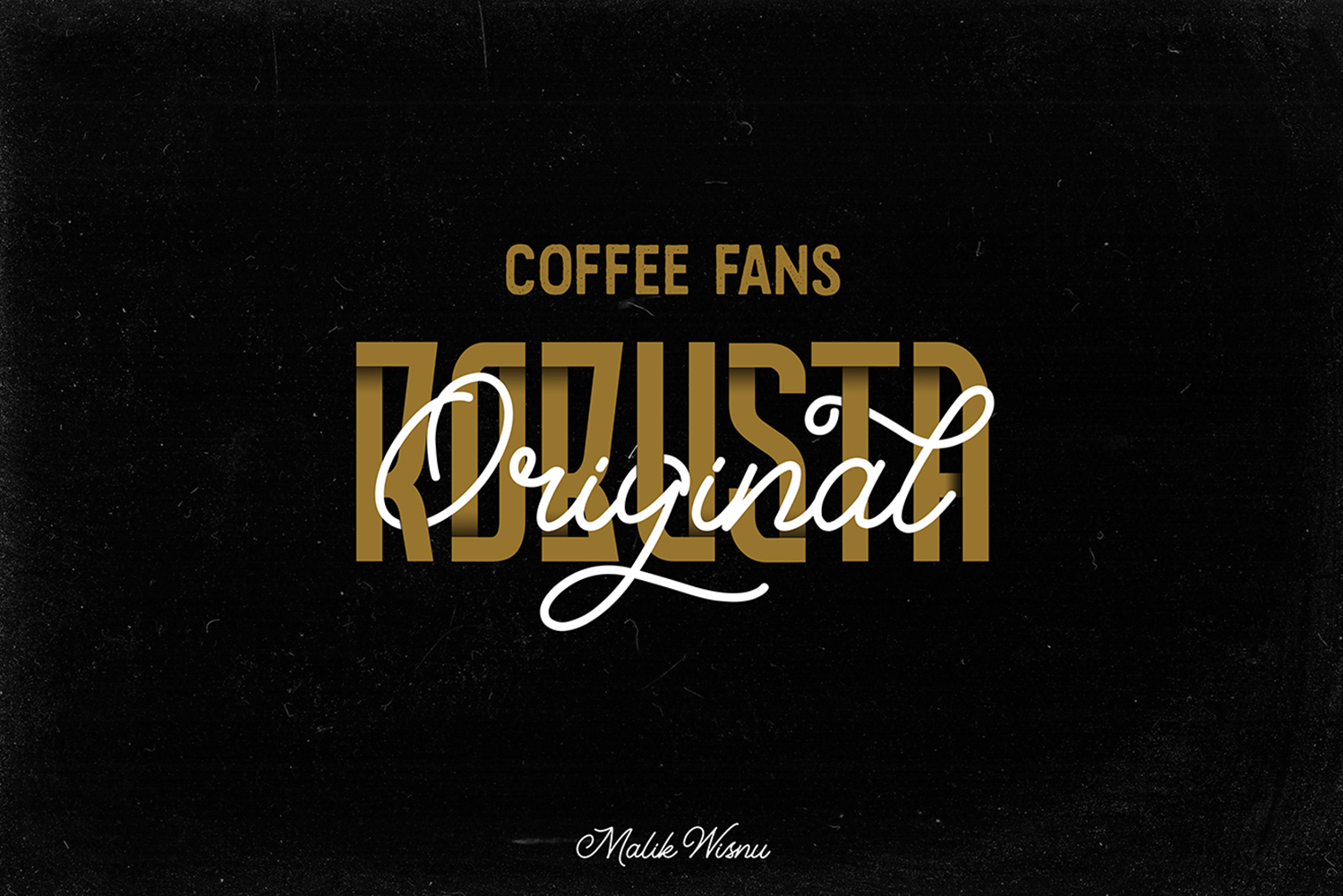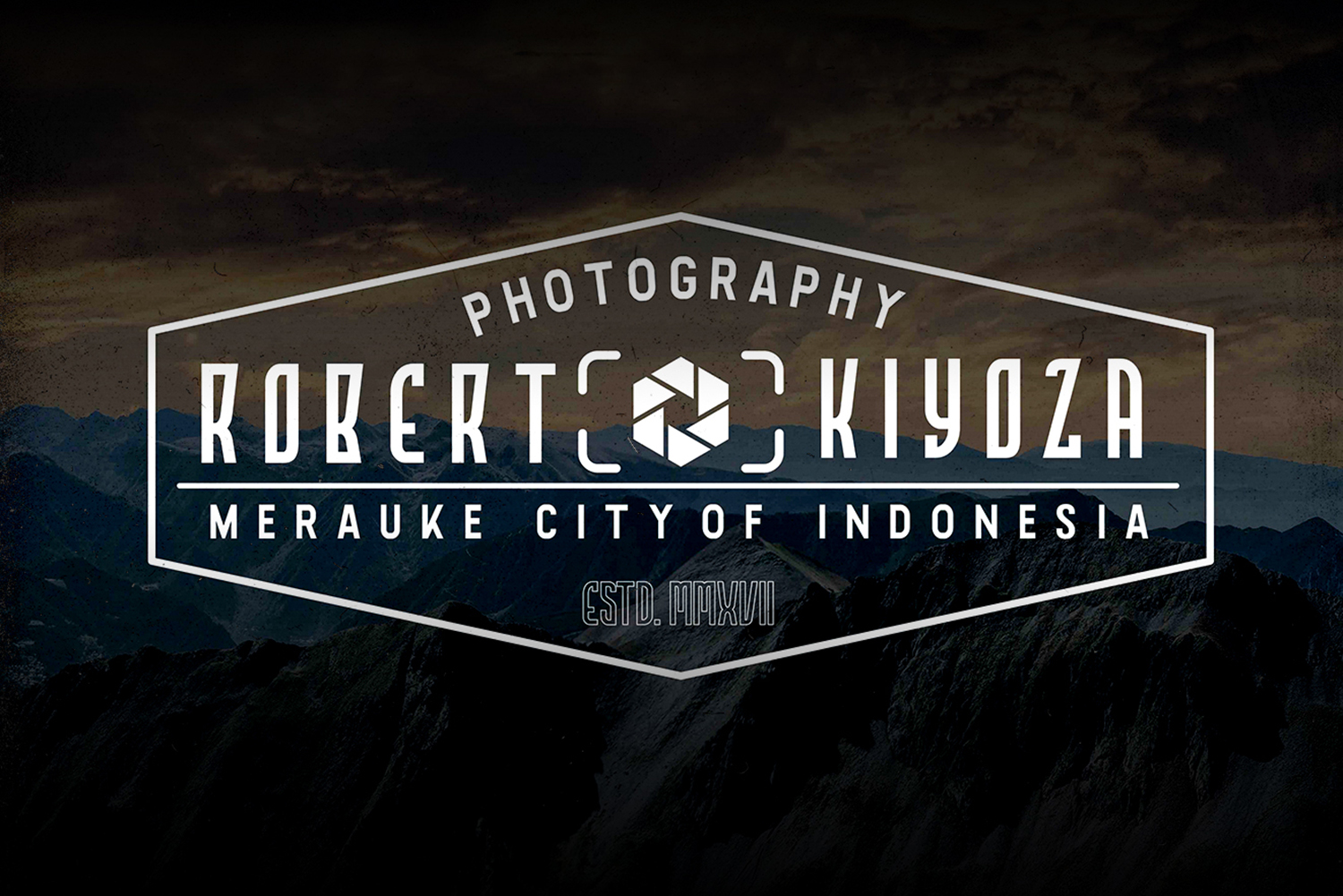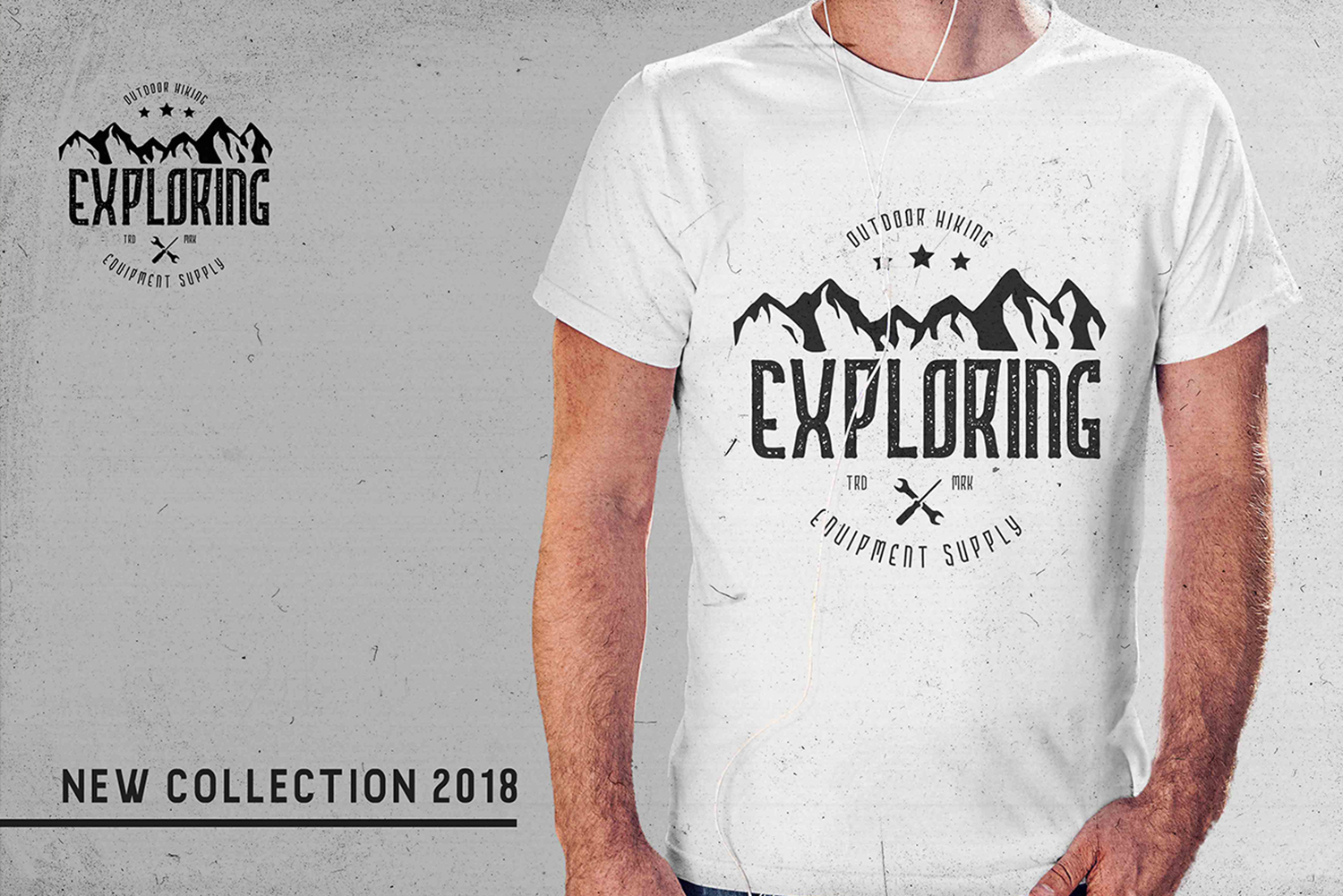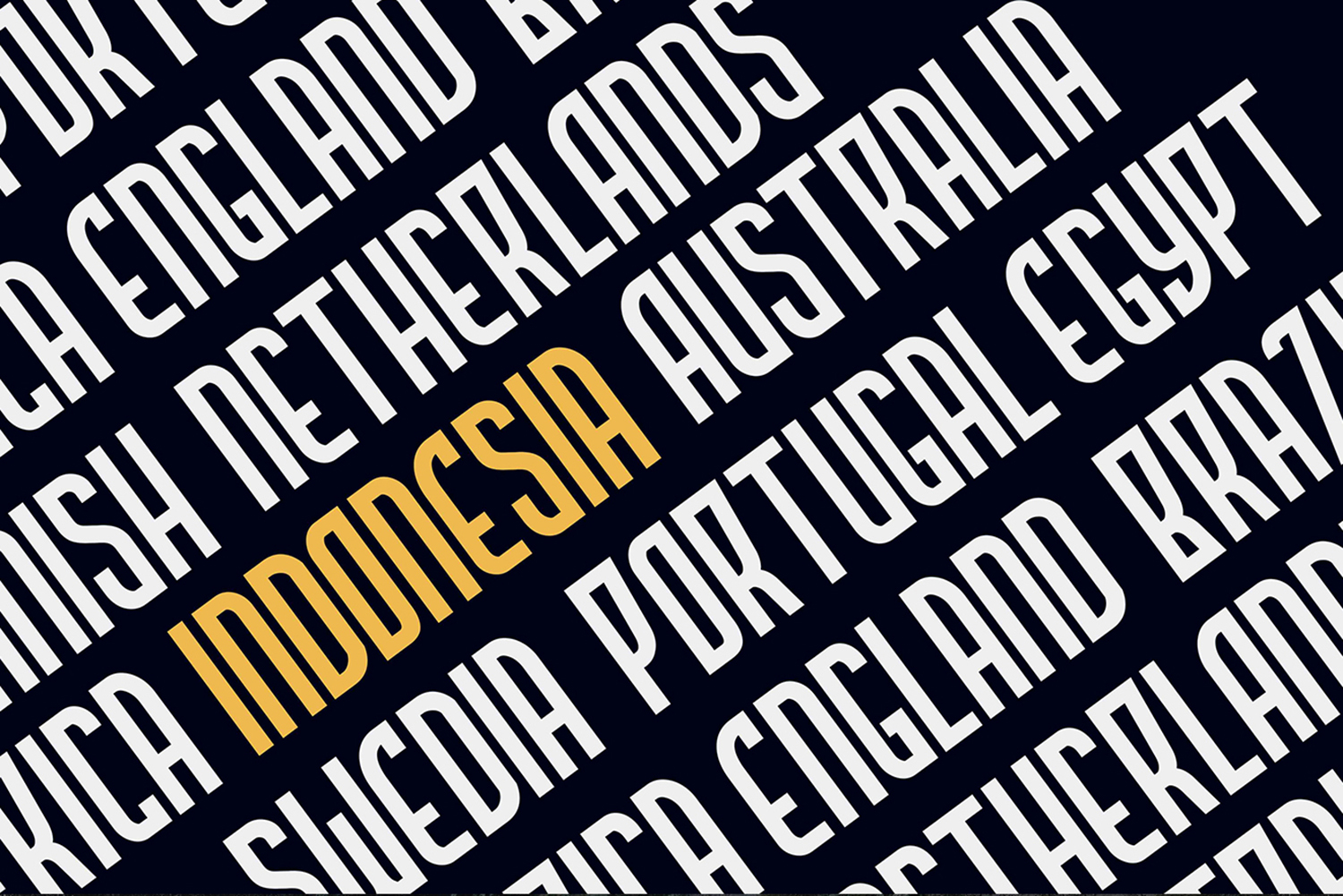
Highstories Free Font Family
Highstories Free Font Family is the best font collection with some interesting styles and a beautiful blend in your design, the letters look firm and easy to use in your various works best for use Poster, Branding, Logotype, t-shirt design product design, packaging and Quotes and more again. This free typeface was designed by a talented Malik Wisnu. If you like it don’t forget to check out the full version.